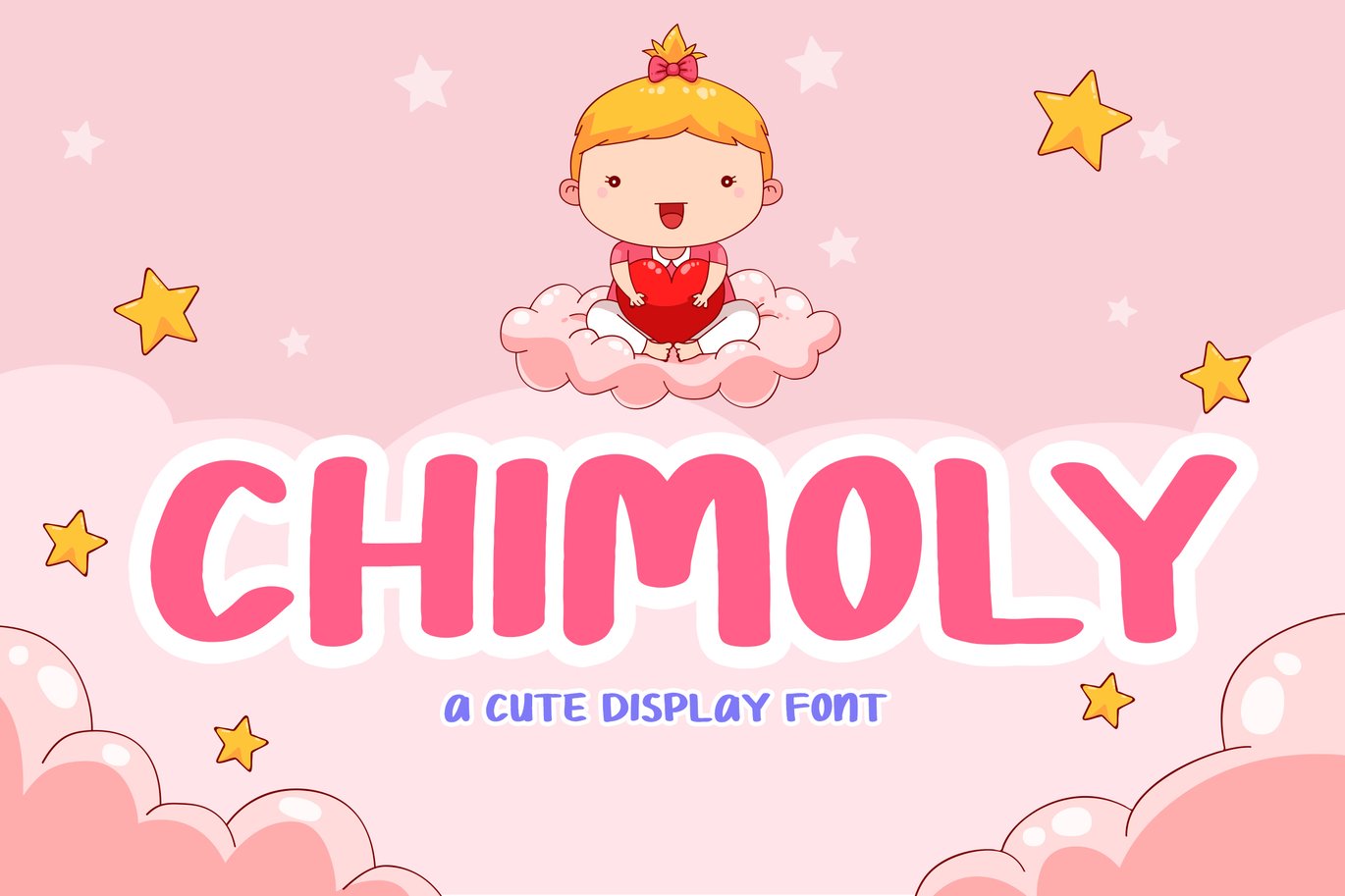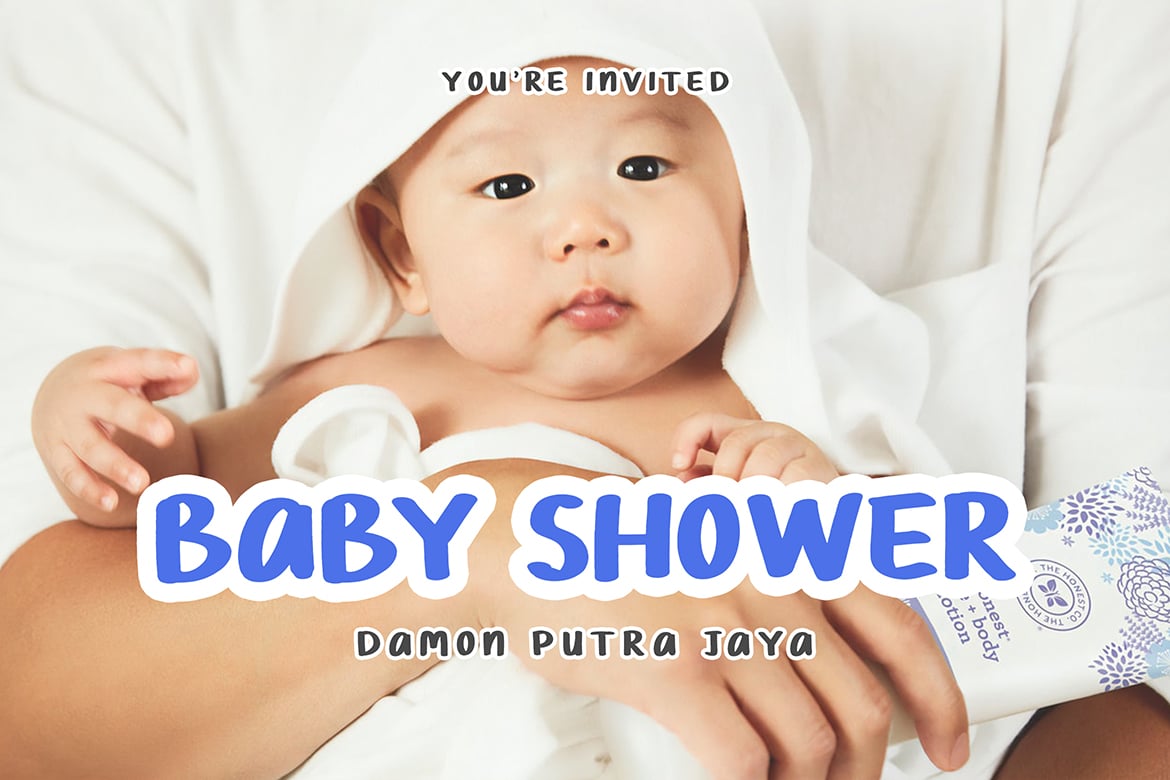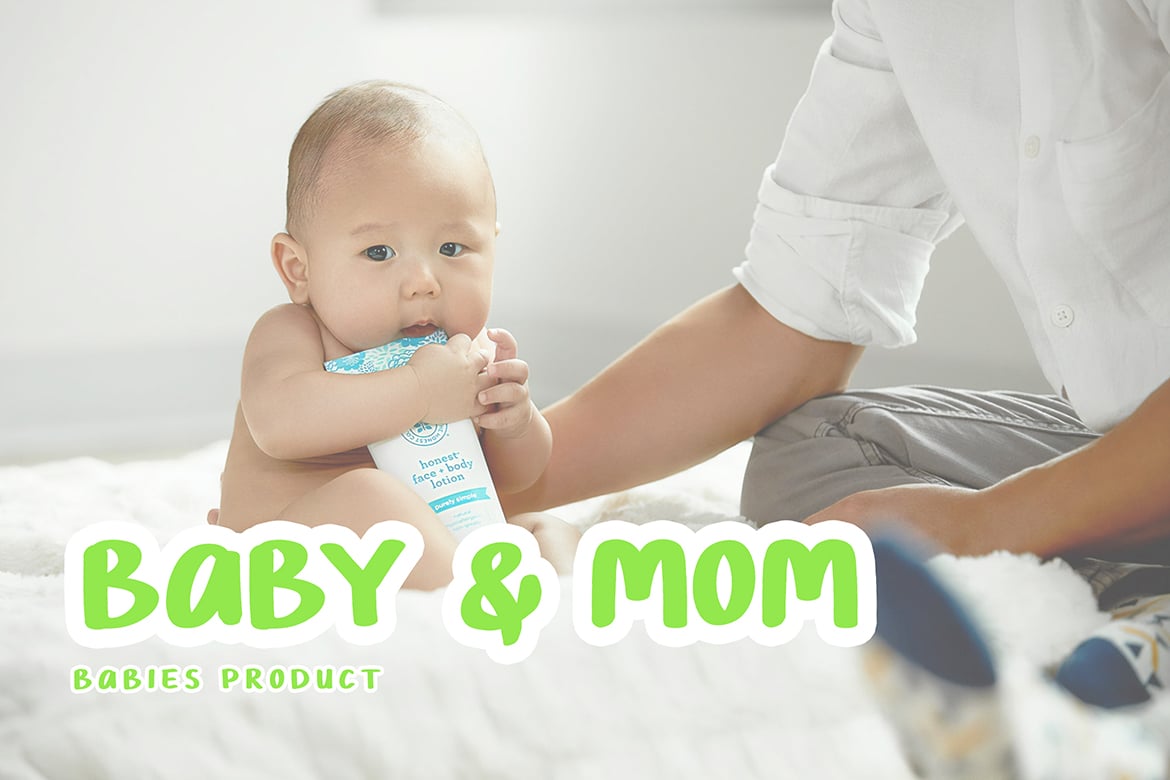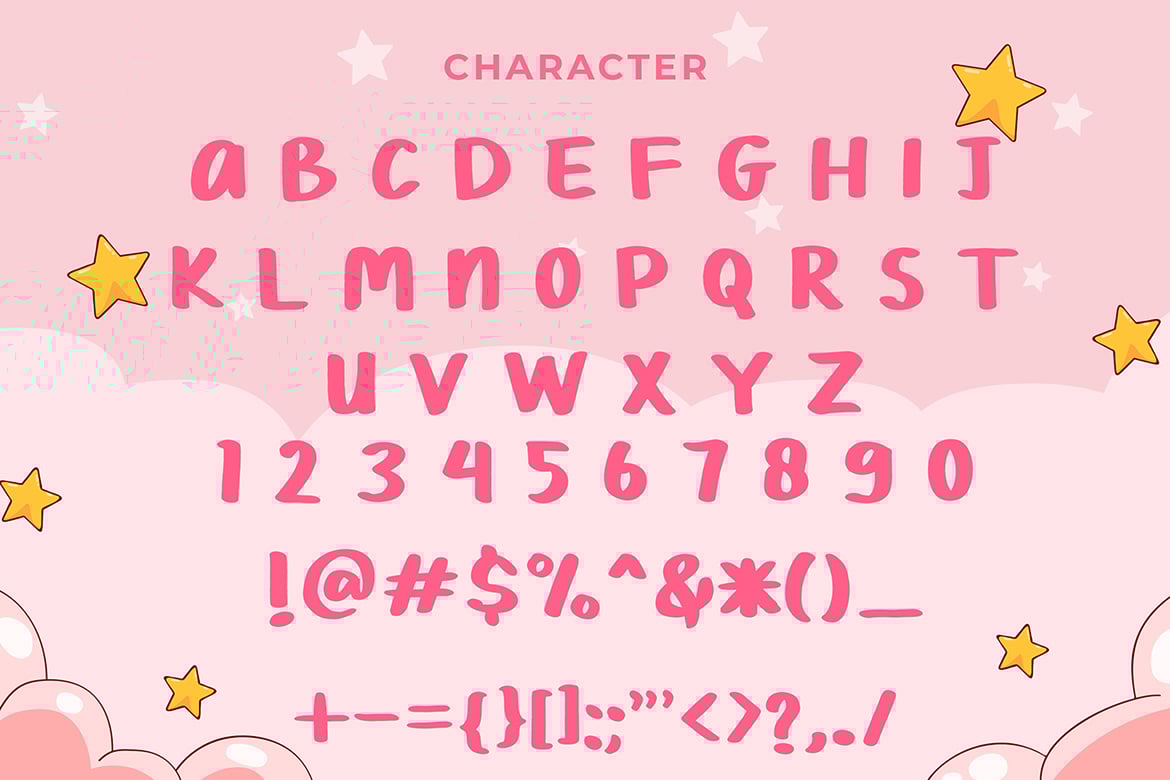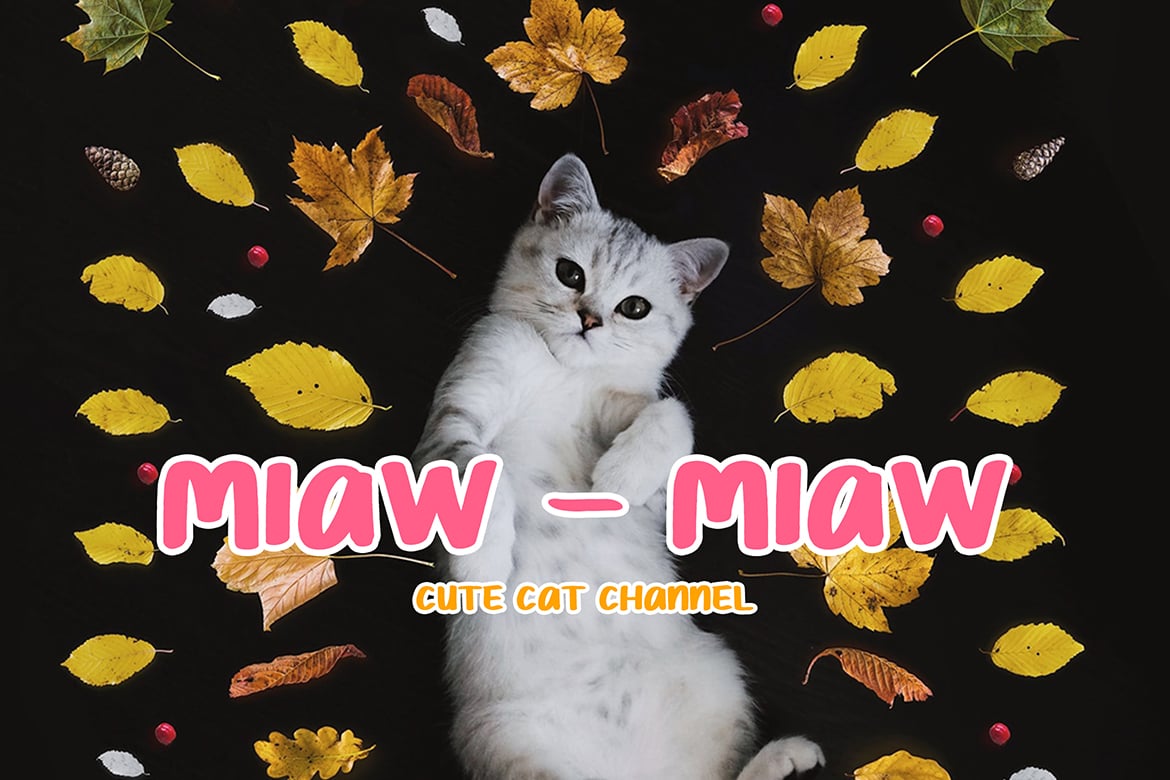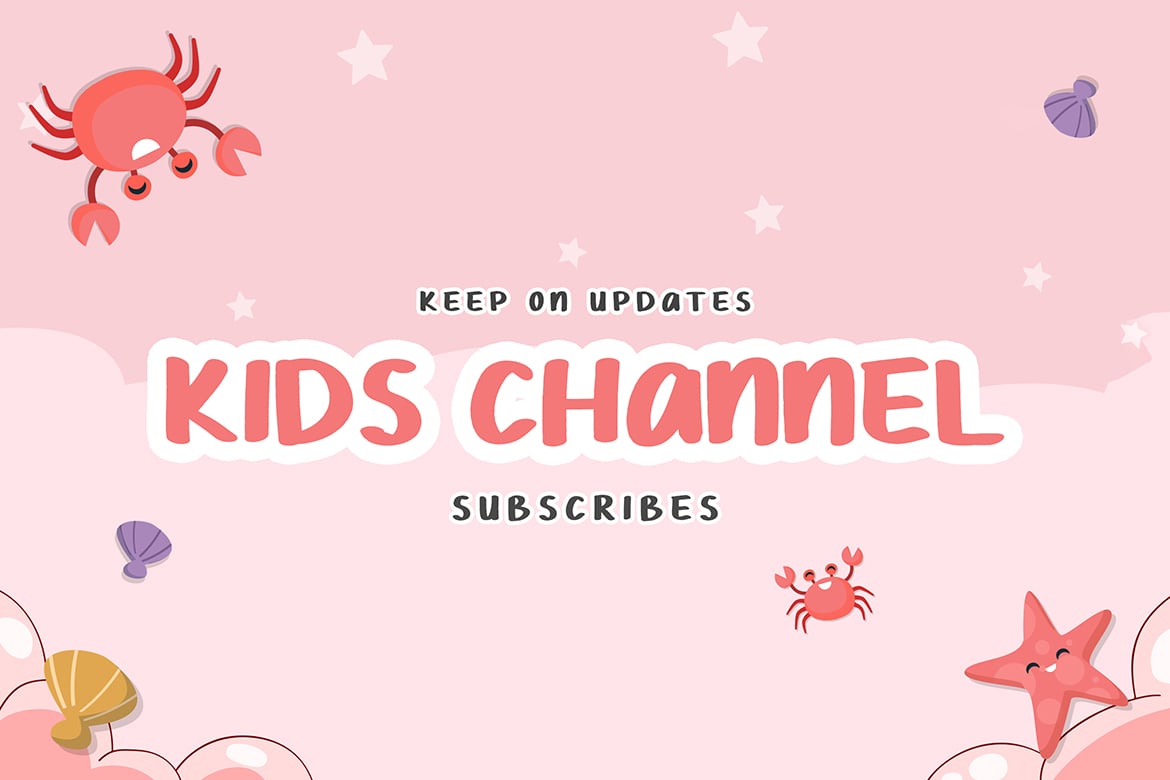
Chimoly Cute Display Font
Chimoly Cute Display Font is a cute and amazing display font that will make children’s themed designs stand out!
Chimoly is perfect for branding projects, logo, book cover design, tshirt designs, social media posts, advertisements, product packaging, product designs, label, watermark, invitation, stationery and any projects.